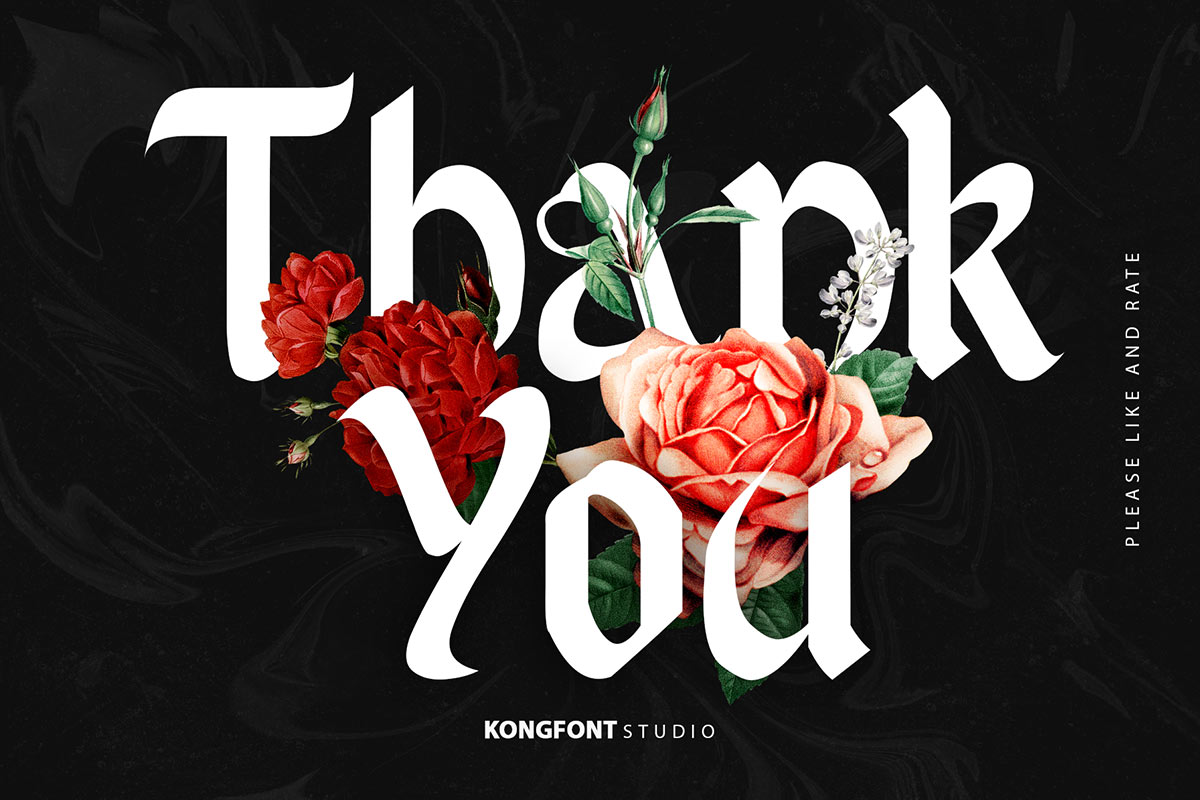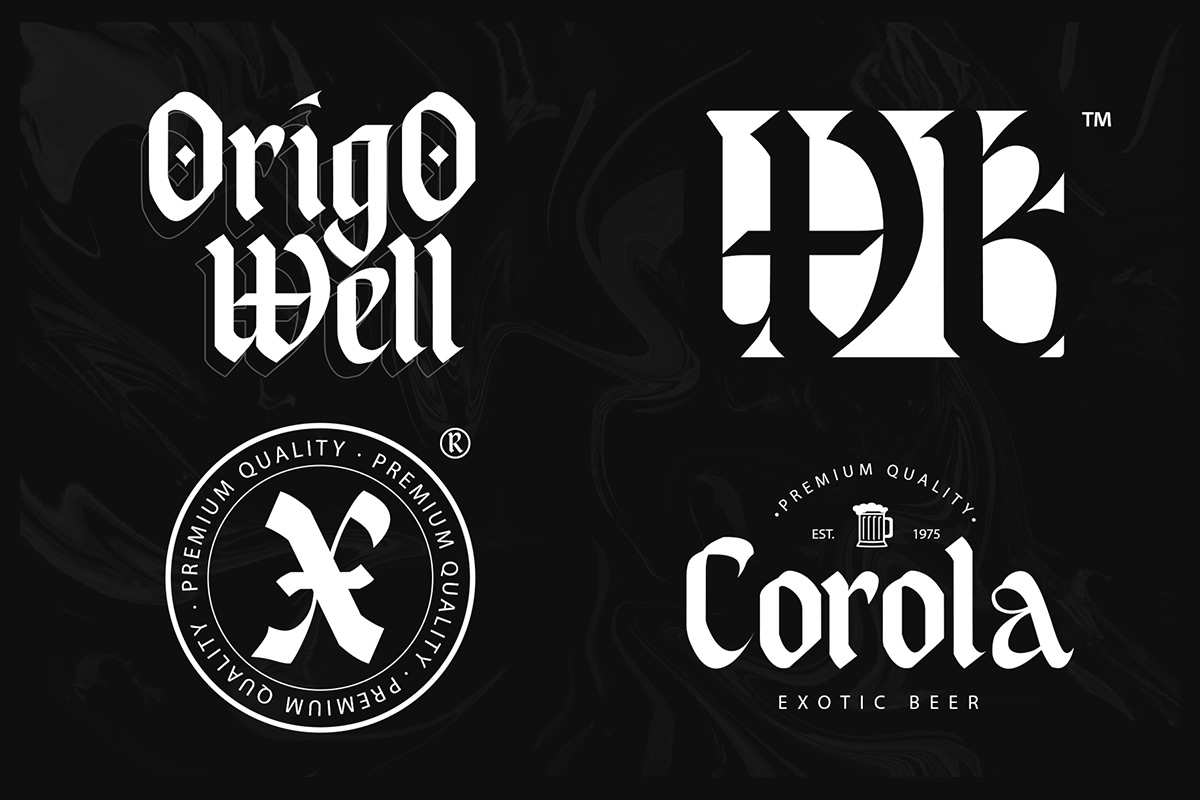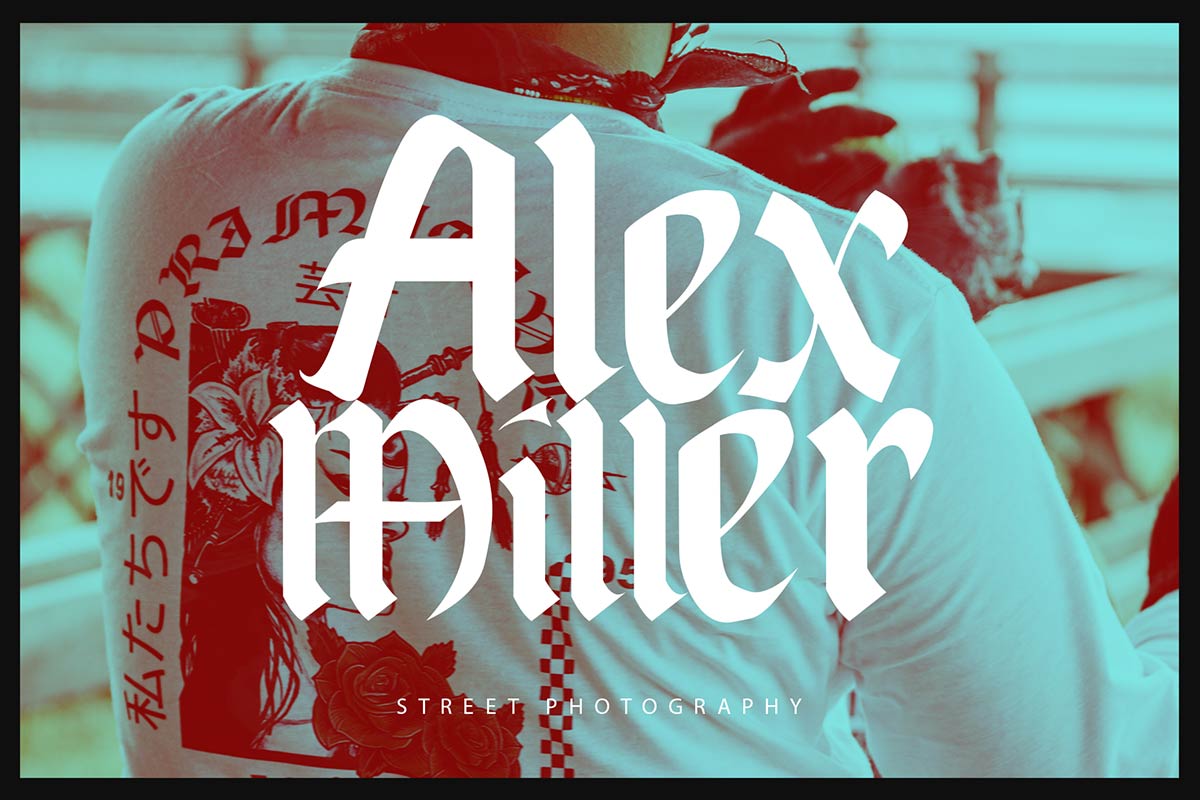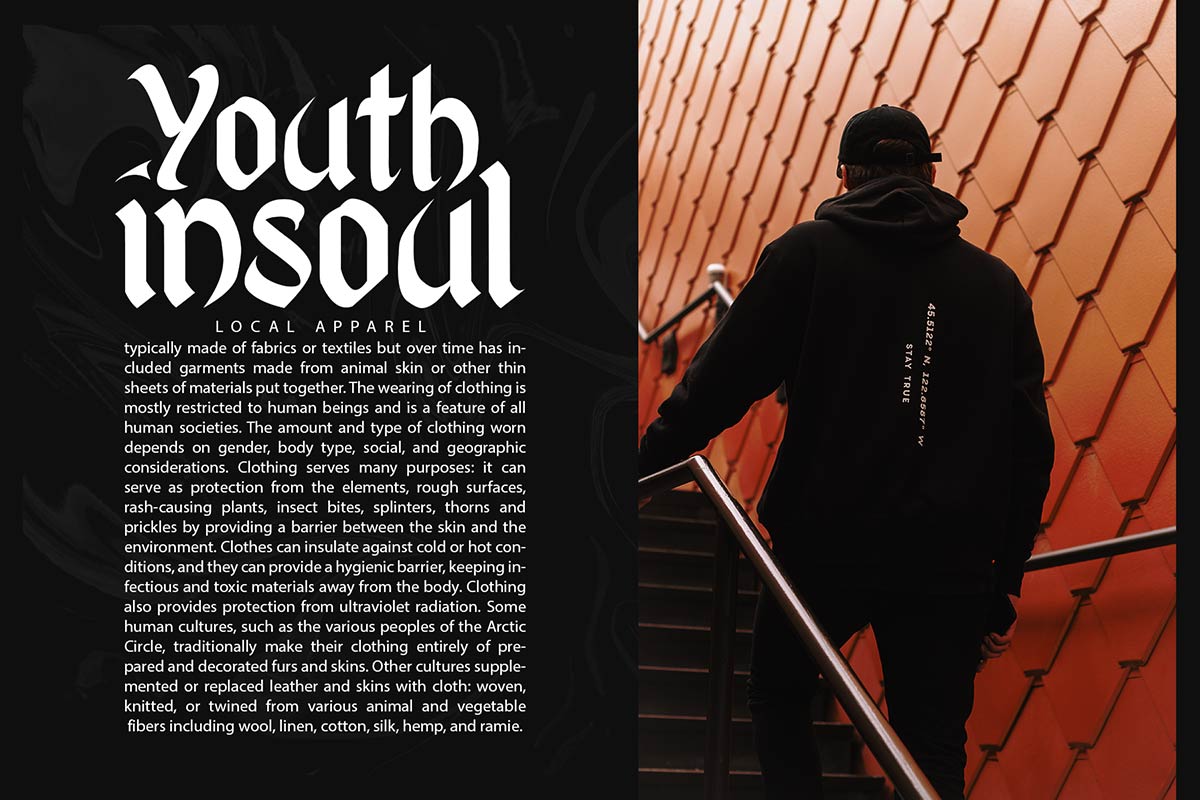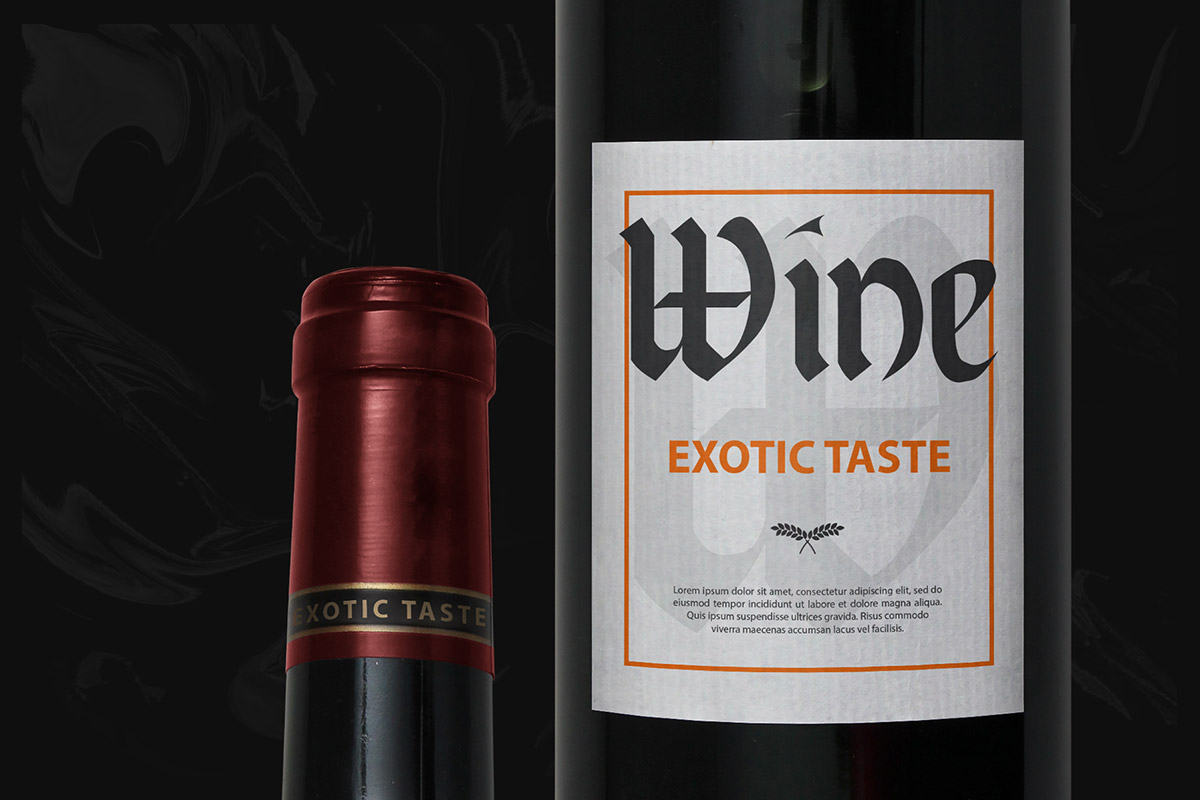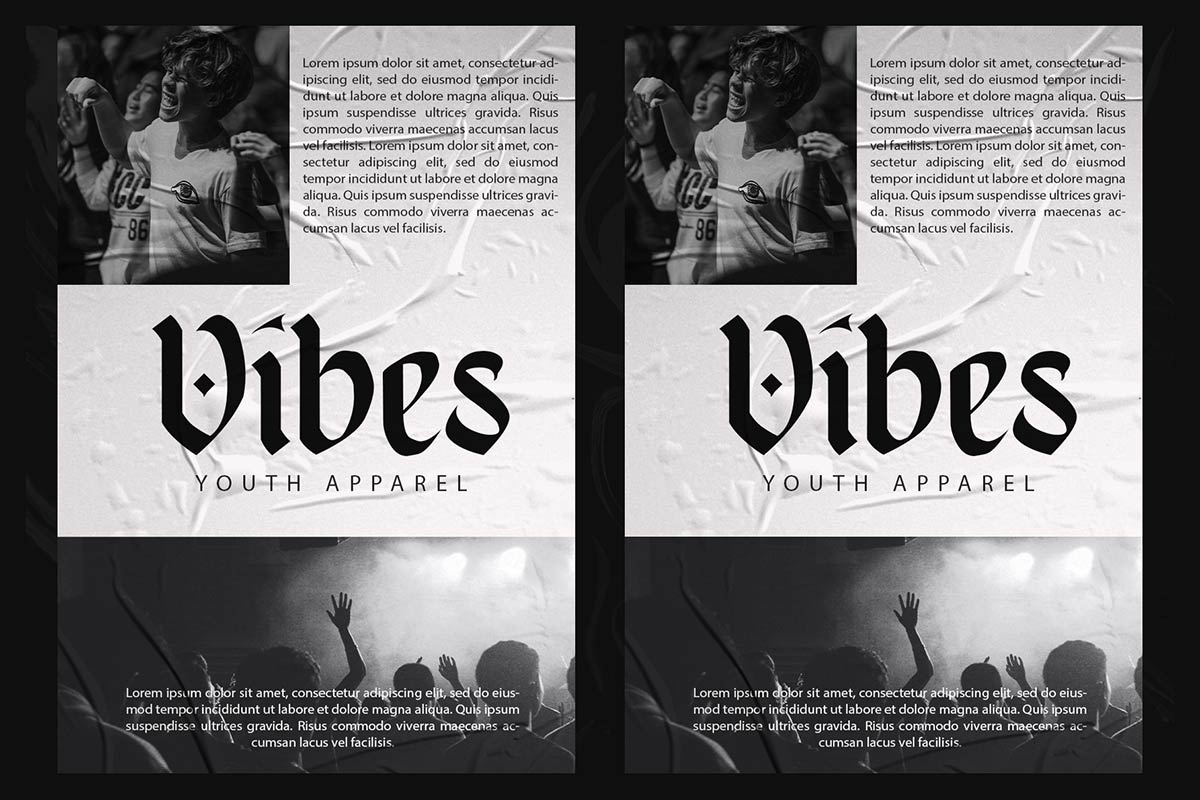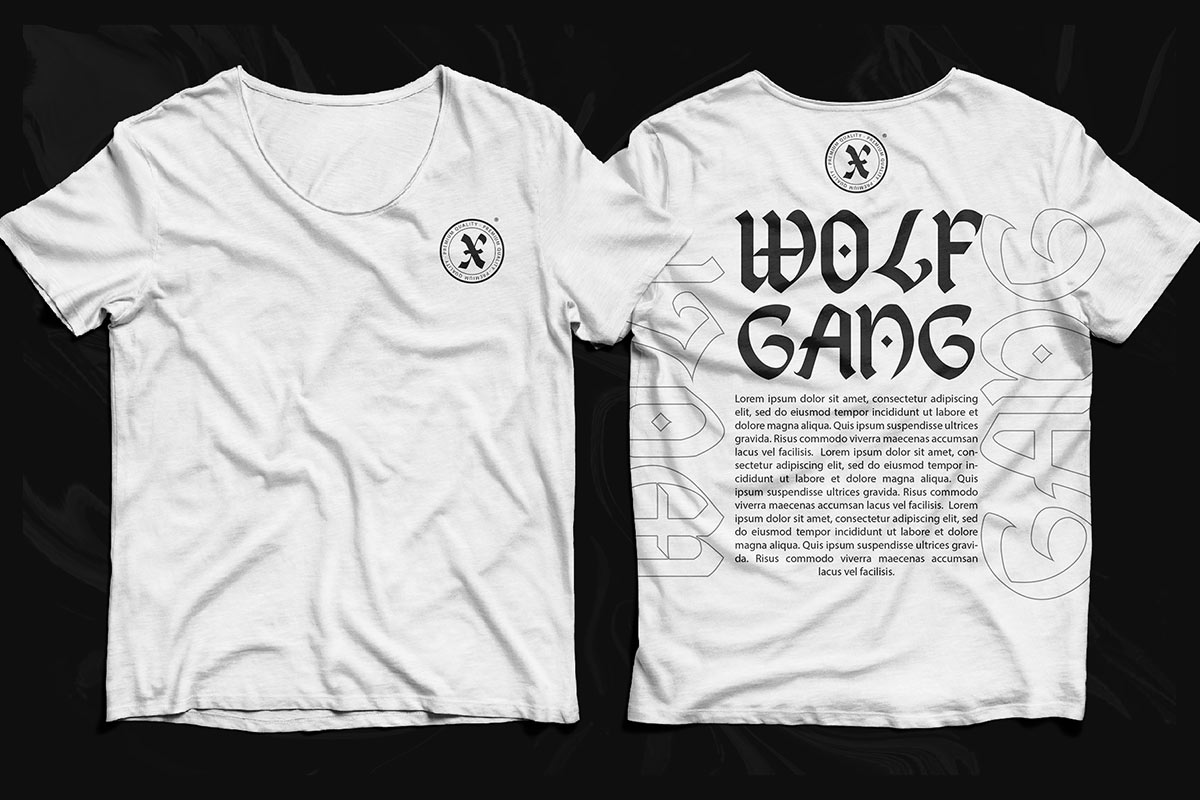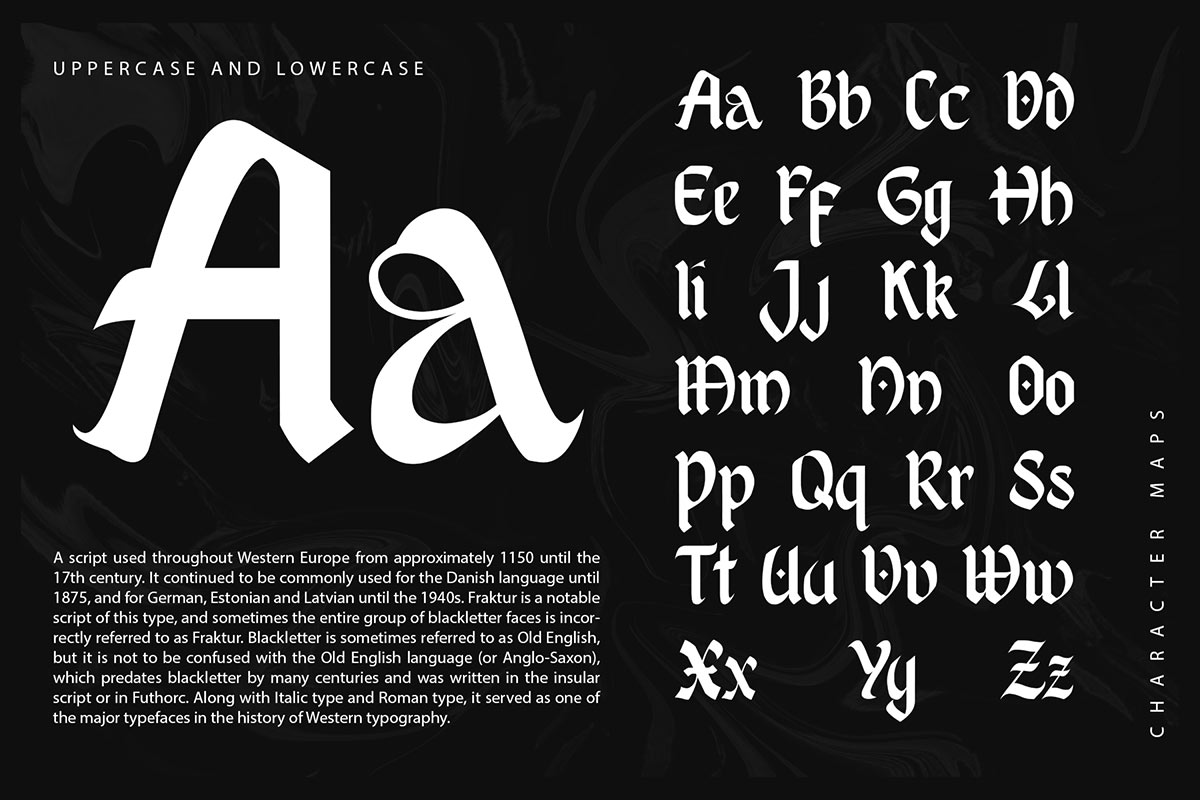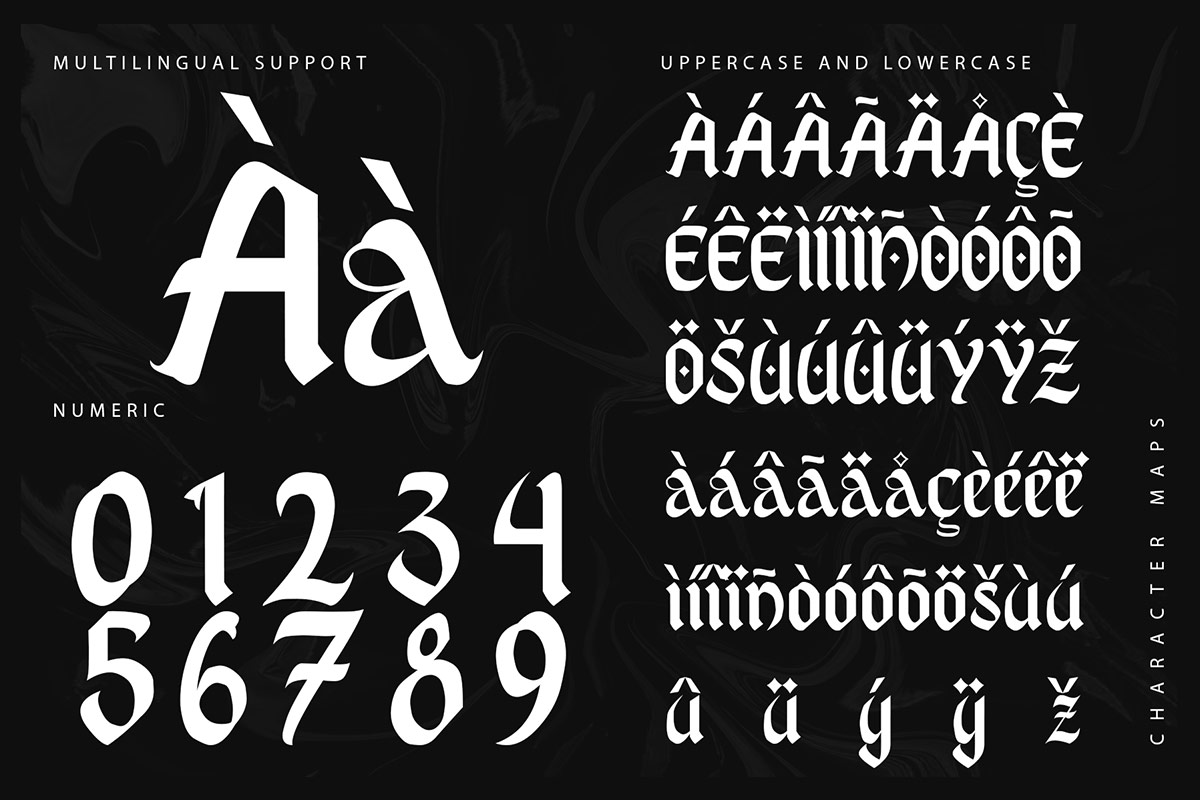
Black White Font After creating many types of fonts, this time Font Kong is back with a new type of font called Black White Blackletter Font. Seen from all sides such as the shape and also the impression it creates, this font is part of the blackletter font and was created with inspiration coming from the Middle Eastern Art of Calligraphy. Black White Blackletter Font is here to bring a new color to the Blackletter world. It is made to add a wide selection of online fonts that are ready to use digital and print. Black White Blackletter Font has a shape that indicates it is part of Blackletter Middle Eastern inspired just by looking at it. If you look closely, you can feel the significant influence of Middle Eastern calligraphy art on this font form. Black White Blackletter Font has an overall characteristic where the font is constructed of many trenchant and bold lines. This font also branches with small curved lines that resemble young leaves. All of these design elements create symbolic structure and meaning instead of purely naturalistic representations of ideas. From this explanation, we can understand that this font is not only part of the Blackletter family of fonts, but also belongs to the category of display and decorative fonts. Black White Blackletter Font is not designed for use in large text or with large font sizes. Because seeing how the shape is quite complicated, it belongs to an illegible font. Regardless of how easy/difficult this font is to read, we can imagine how it fits into various fixtures. Black White Blackletter Font is one of the best fonts to use in horror books or mystery novels. This font also works when used to create horror movie posters, and horror-themed parties like Halloween or used on behalf of some metal bands and their album covers. Not only that, but Black White Blackletter Font can also be combined as their trademark such as; t-shirts, jackets, and denim pants. Chaotic font forms, demanding the reader to pay extra attention and focus at this time. However, it is this chaotic energy that is the hallmark and identity of this artistic font. When typed in dark colors, this font creates a stunning gothic atmosphere. Seeing the many matches using this font, it is hoped that the presence Black White Blackletter Font can answer your confusion about having the most appropriate font. For your social media needs, you can use and install fonts in our collection of Blackletter fonts to use as Instagram Fonts, Facebook Fonts, and Twitter Fonts. As well as the application of this font, you can use it in several applications, such as Figma fonts, Canva fonts, Freepik fonts, Adobe fonts, Google fonts, Instagram fonts, and Social Media Fonts.